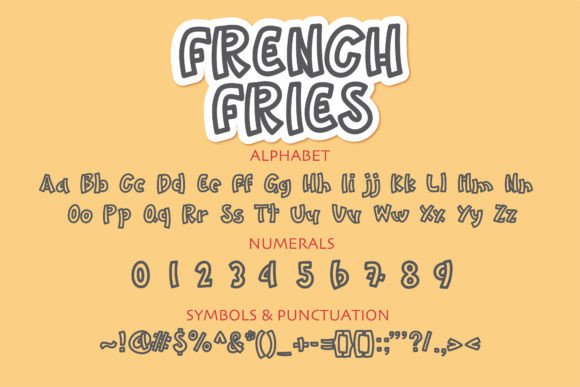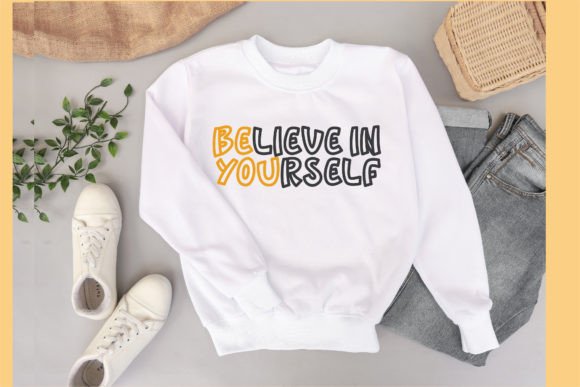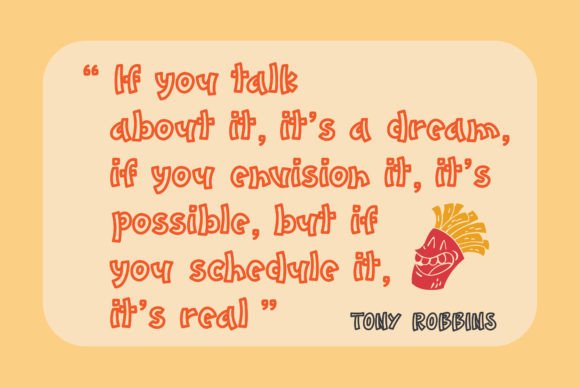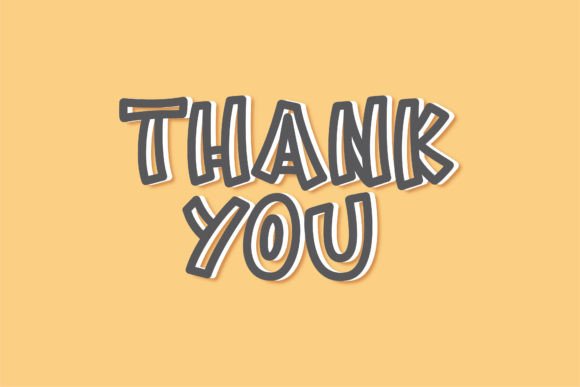
Introducing French Fries Font: The Perfect Addition to Your Design Collection
Are you a designer or crafter looking for a unique and versatile font to elevate your projects? Look no further than French Fries Font, a cute and flexible handwritten font that’s perfect for a wide range of designs. With its natural and distinctive style, French Fries Font is sure to add a touch of personality and whimsy to your creations.
What Makes French Fries Font So Special?
French Fries Font is a beautifully crafted handwritten font that’s designed to be both elegant and playful. Its natural, effortless style makes it incredibly fitting for a large pool of designs, from rustic and vintage-inspired projects to modern and trendy ones. Whether you’re working on a logo, a poster, a social media graphic, or a craft project, French Fries Font is sure to add a touch of charm and character.
Key Features of French Fries Font
• Cute and Flexible: French Fries Font is designed to be both adorable and versatile, making it perfect for a wide range of designs and projects.
• Handwritten Style: With its natural, handwritten style, French Fries Font adds a touch of personality and whimsy to any project.
• Unique and Distinctive: French Fries Font has a unique and distinctive style that sets it apart from other fonts, making it perfect for designers and crafters who want to add a touch of originality to their work.
• Endless Variations: With French Fries Font, you can create endless variations and combinations, making it perfect for experimenting with different designs and styles.
• Use for Headings and Titles: French Fries Font is perfect for headings and titles, where its bold and playful style can really make an impact.
Font Name French Fries Font
Author GoodMoodType